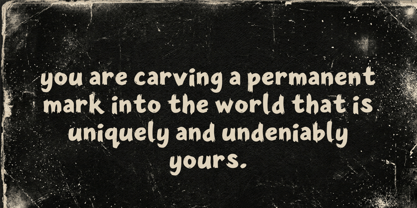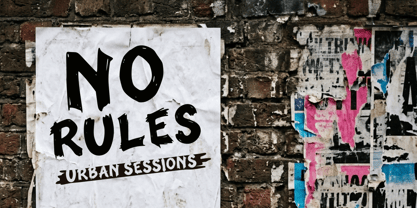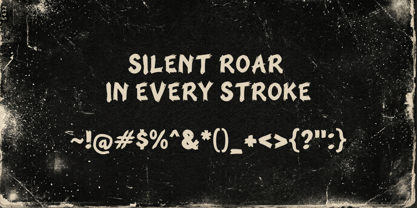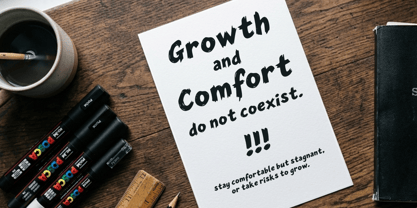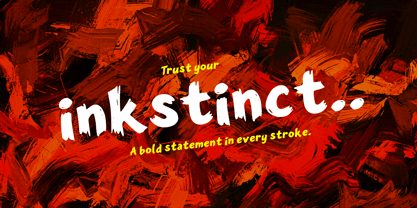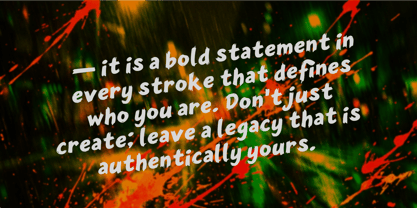
Inkstinct
by Abda bil Qalam
The Inkstinct Font Family was designed by Wahyu Eka Prasetya, Ahmad Hidayat and published by Abda bil Qalam. Inkstinct contains 1 styles. More about this family
Inkstinct: The Soul of the Human Hand Inkstinct is an expressive Regular typeface that captures the raw, visceral energy of manual handwriting. Created by Wahyu Eka Prasetya and Wida Ahmad Hidayat under the Abda bil Qalam foundry, this font is designed to bring an authentic, "ink-on-paper" soul to your digital canvas. Why You’ll Love It Natural Flow: Features "Common Ligatures" that allow characters to connect seamlessly, mimicking the organic rhythm of a steady hand. Rich Character Set: Includes essential symbols like the Euro sign, mathematical operators (infinity, radicals, summation), and extensive diacritics for global language support. Professional Versatility: While it looks handmade, it is technically refined with precise "All Typographic Features" to ensure clarity across both print and digital screens. Best Use Cases Branding & Logos: Perfect for artisanal brands, cafes, or creative portfolios looking for a personal, handcrafted touch. Packaging: Ideal for organic products or handmade goods that require an "authentic" and premium feel. Social Media: Create eye-catching, thumb-stopping graphics that feel personal rather than manufactured. Bring a human touch to your next project with Inkstinct—where every stroke tells a story.
Inkstinct